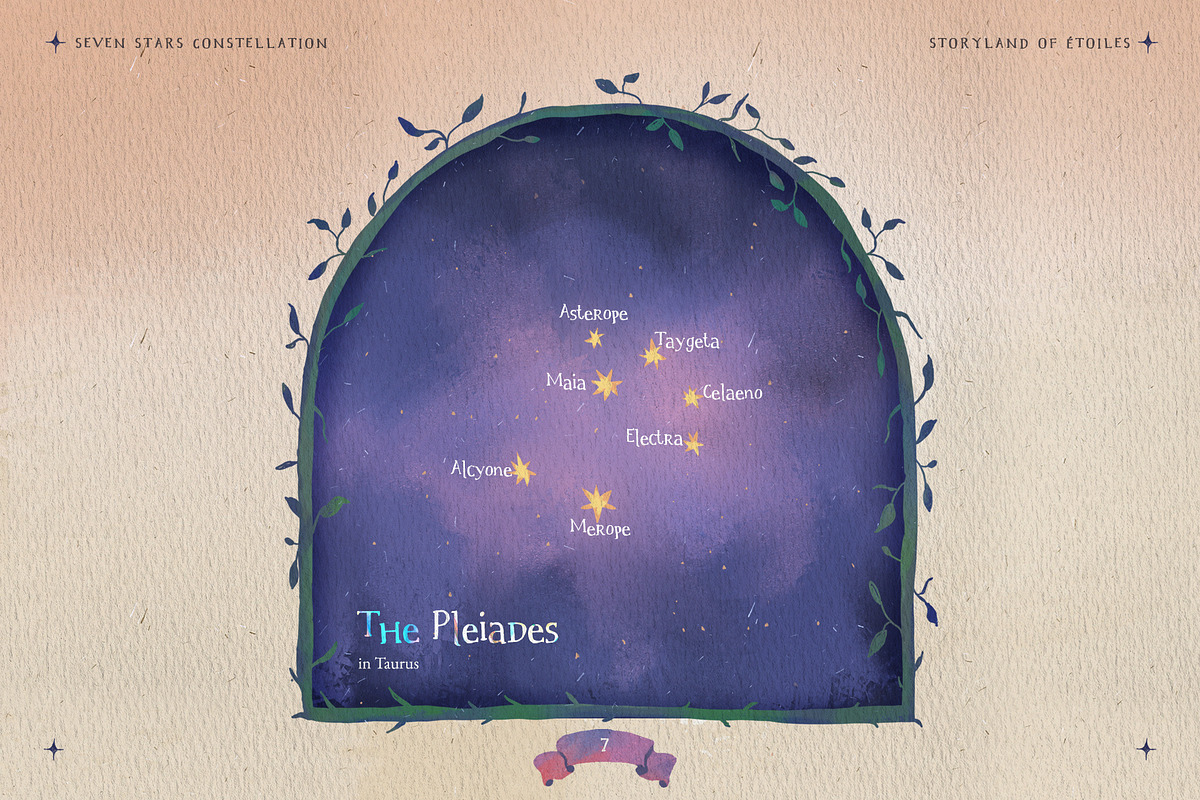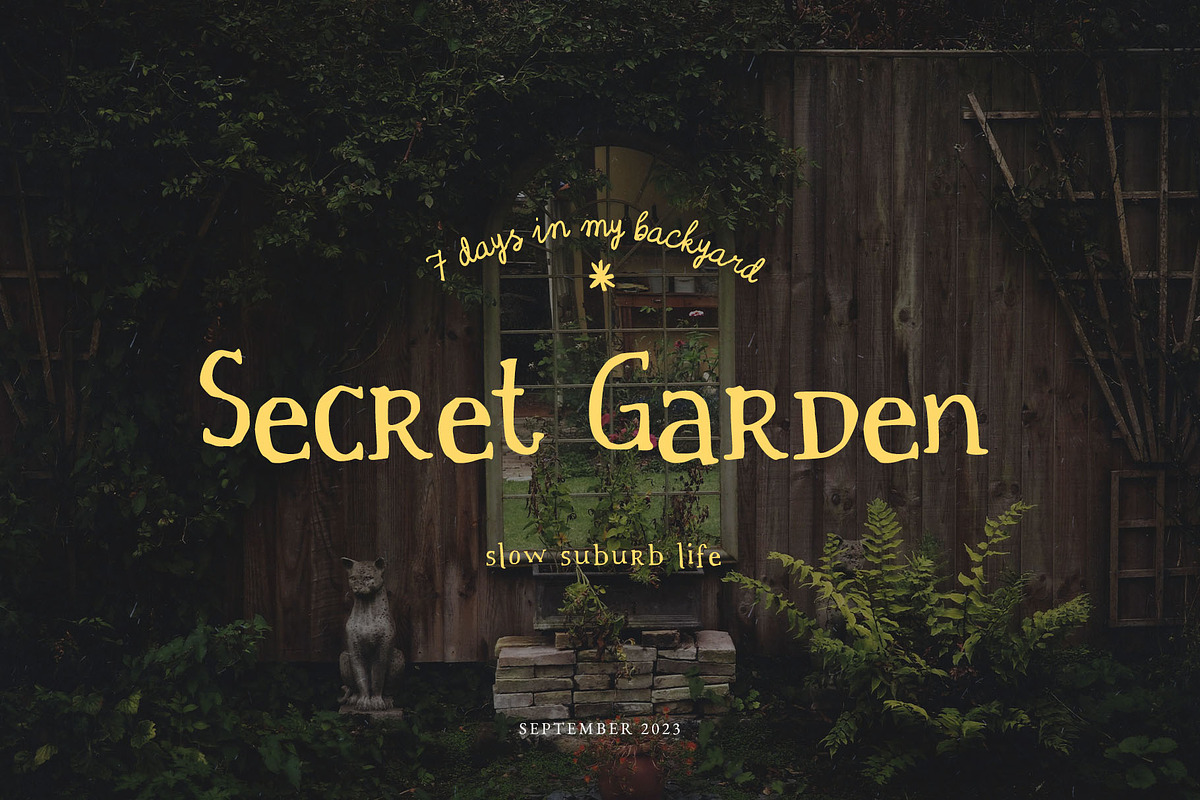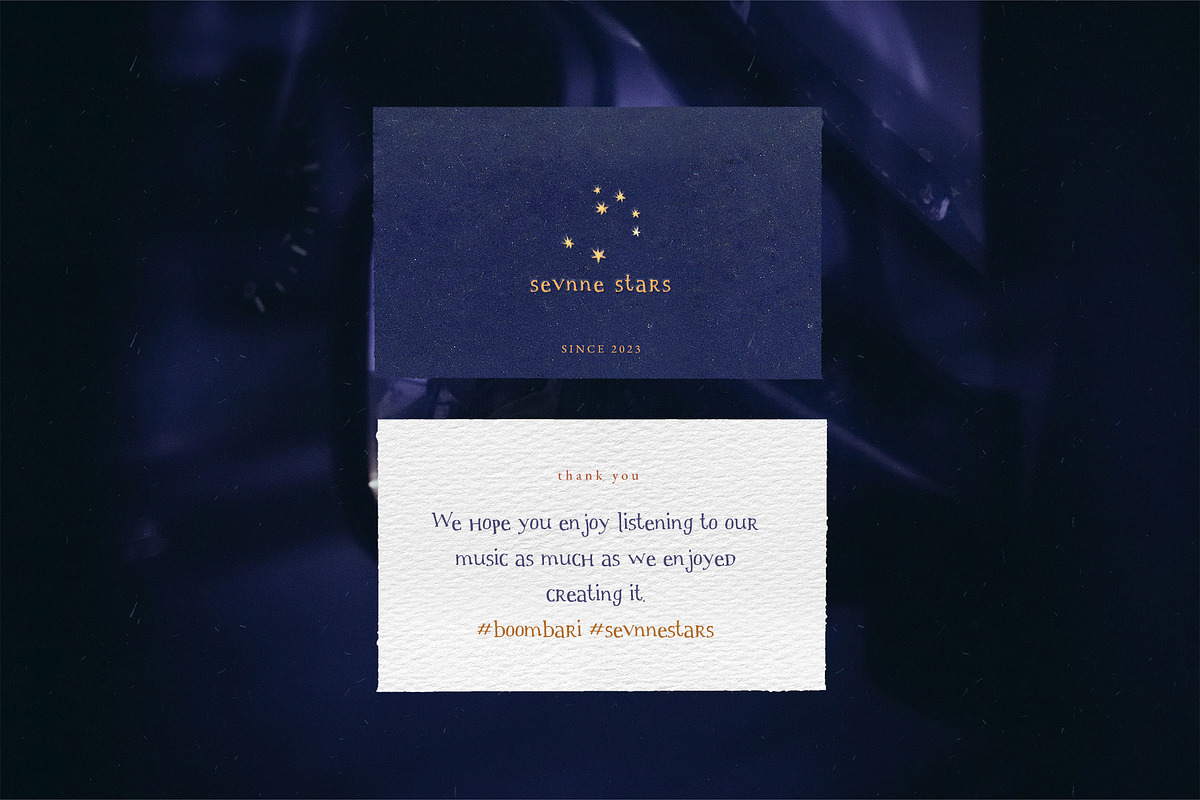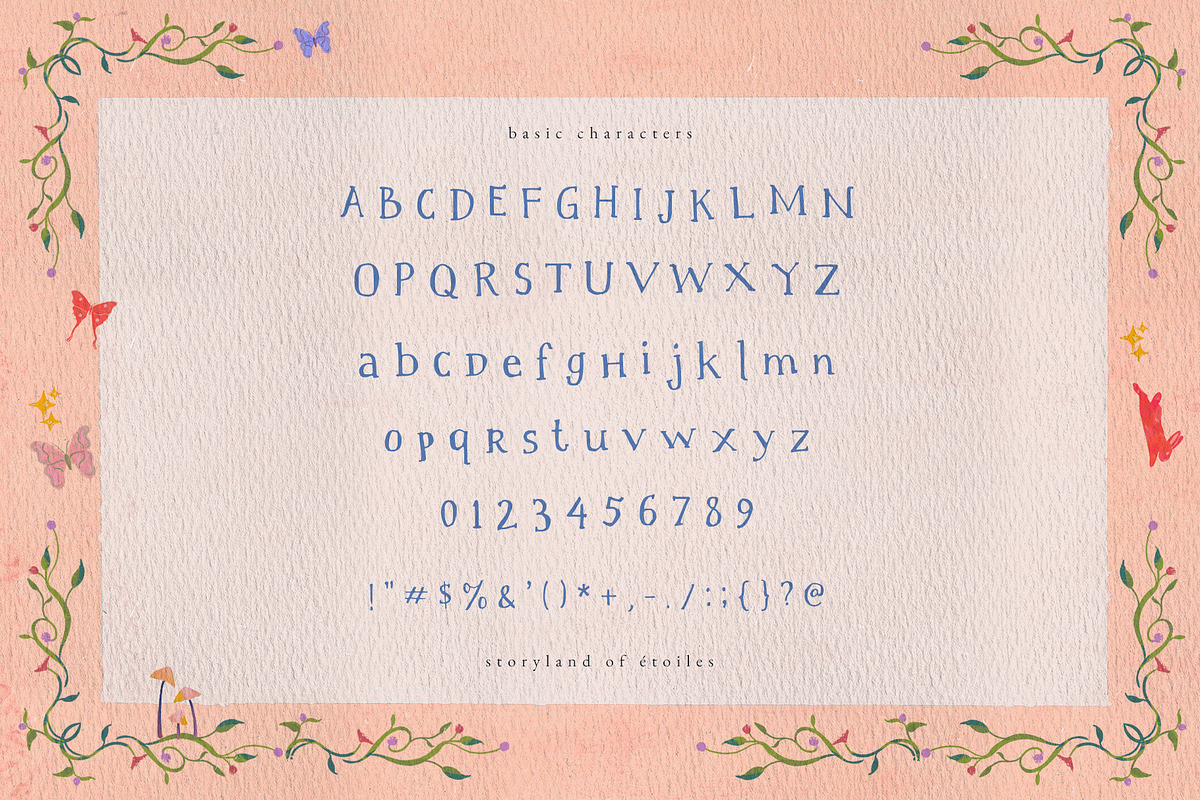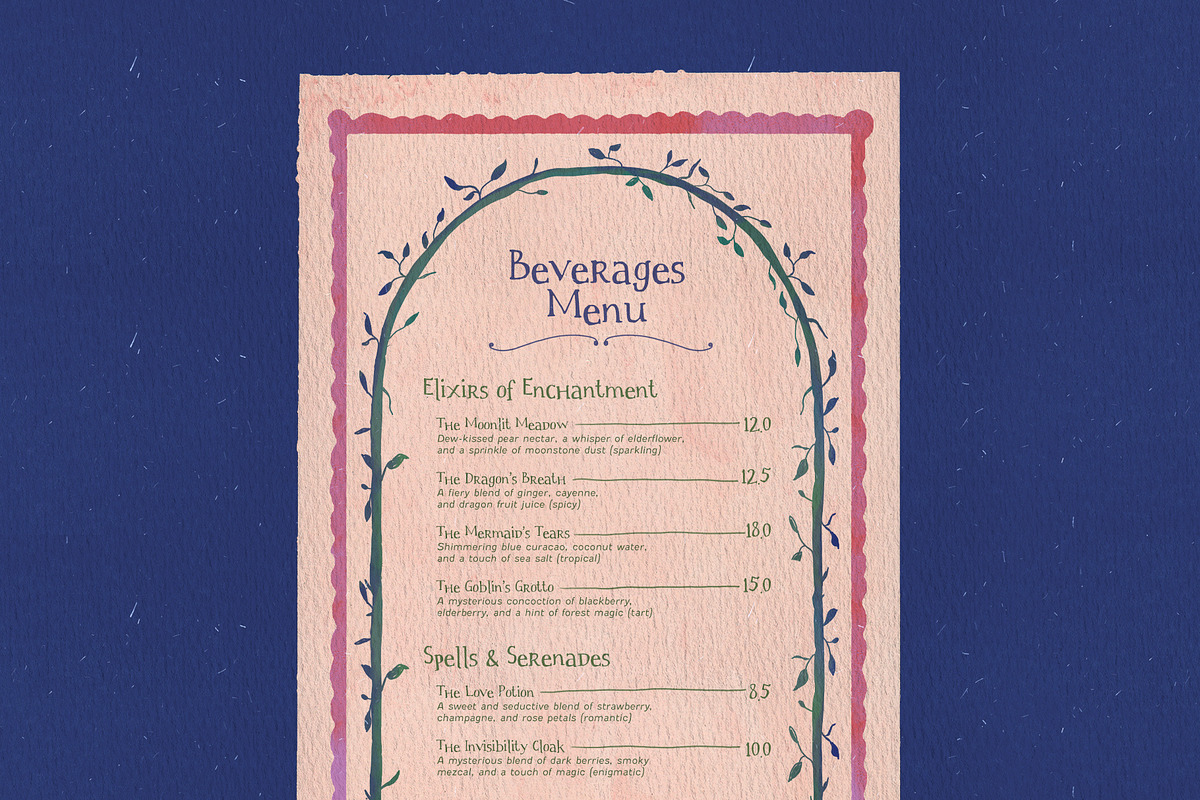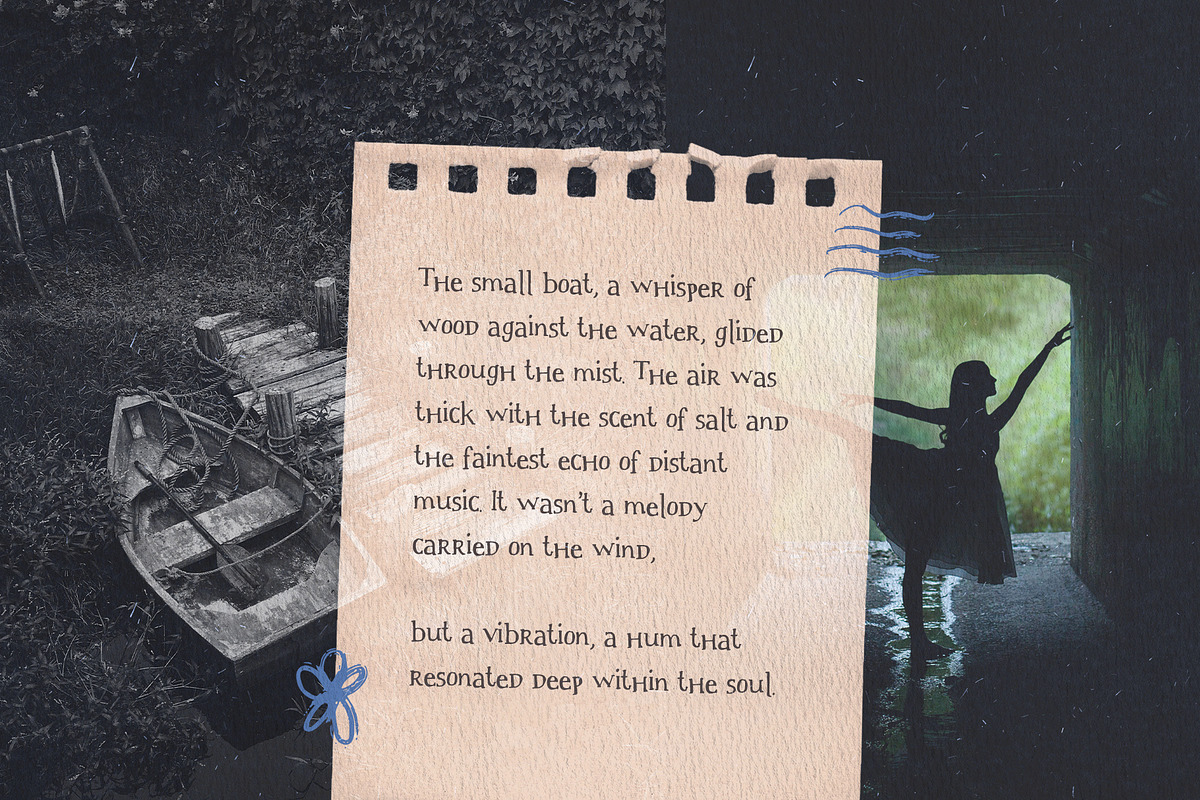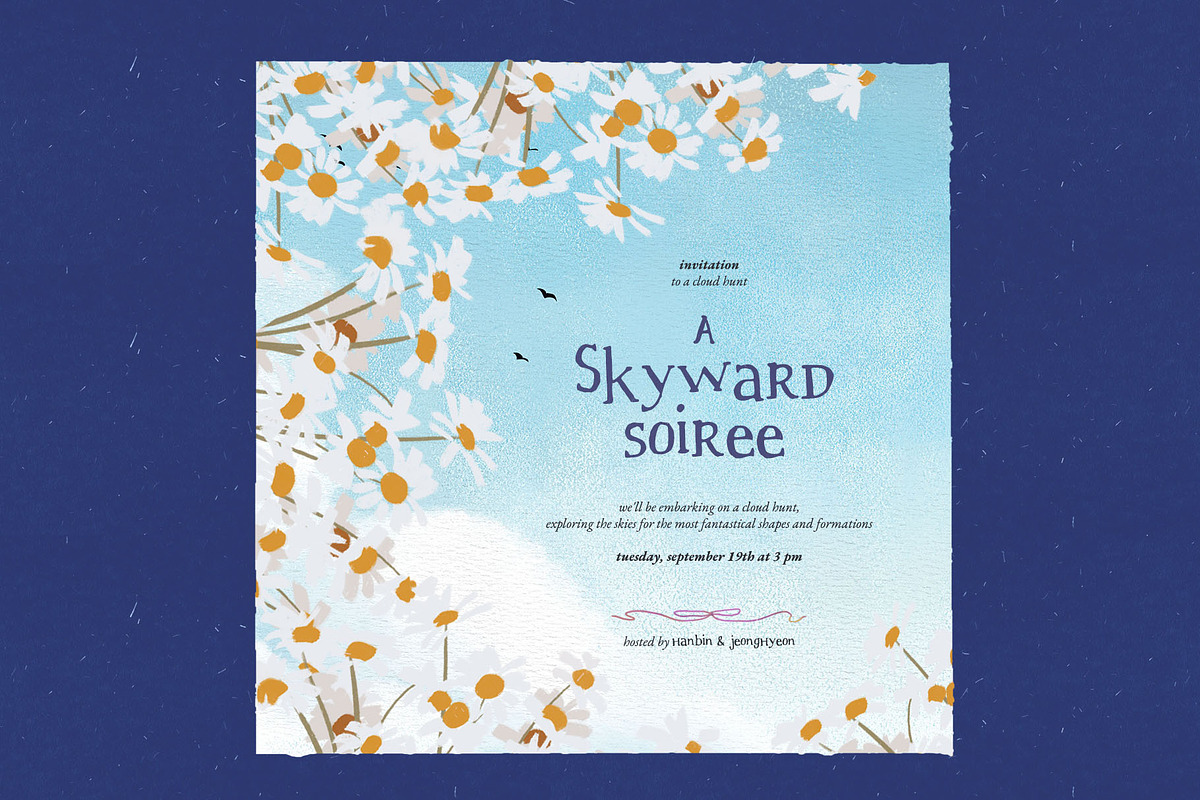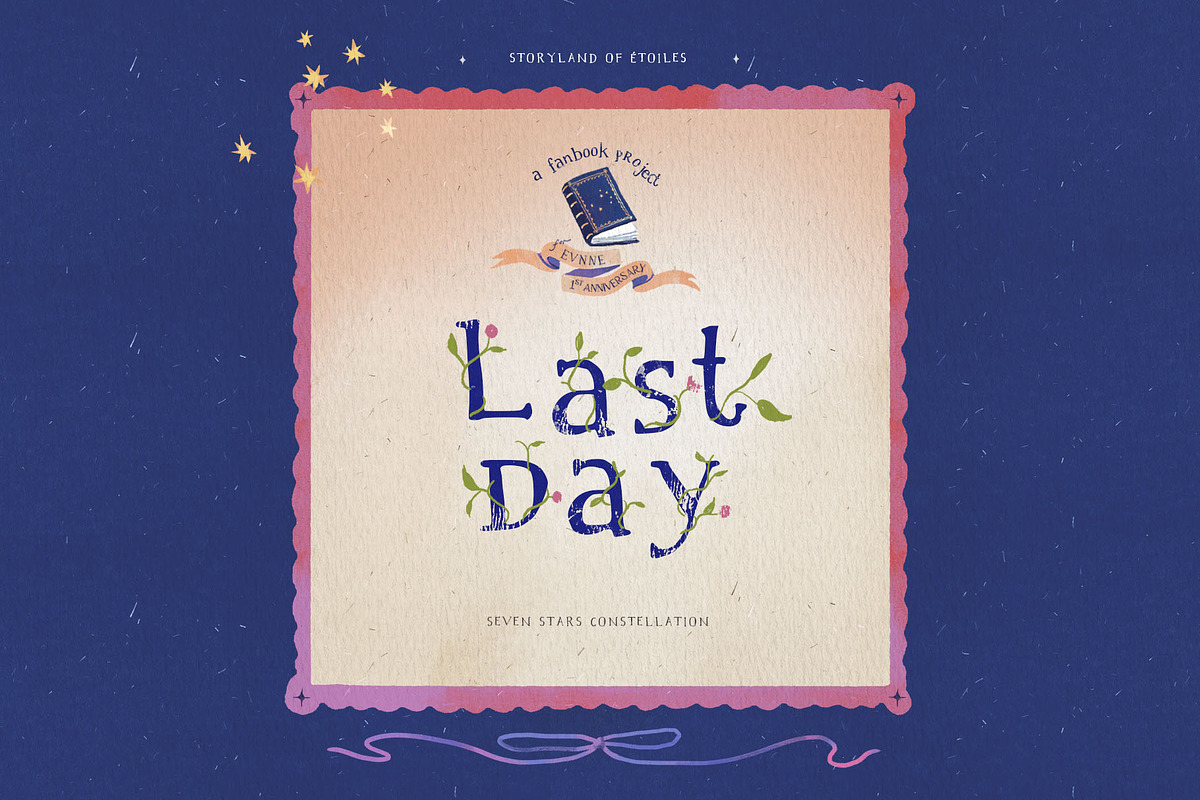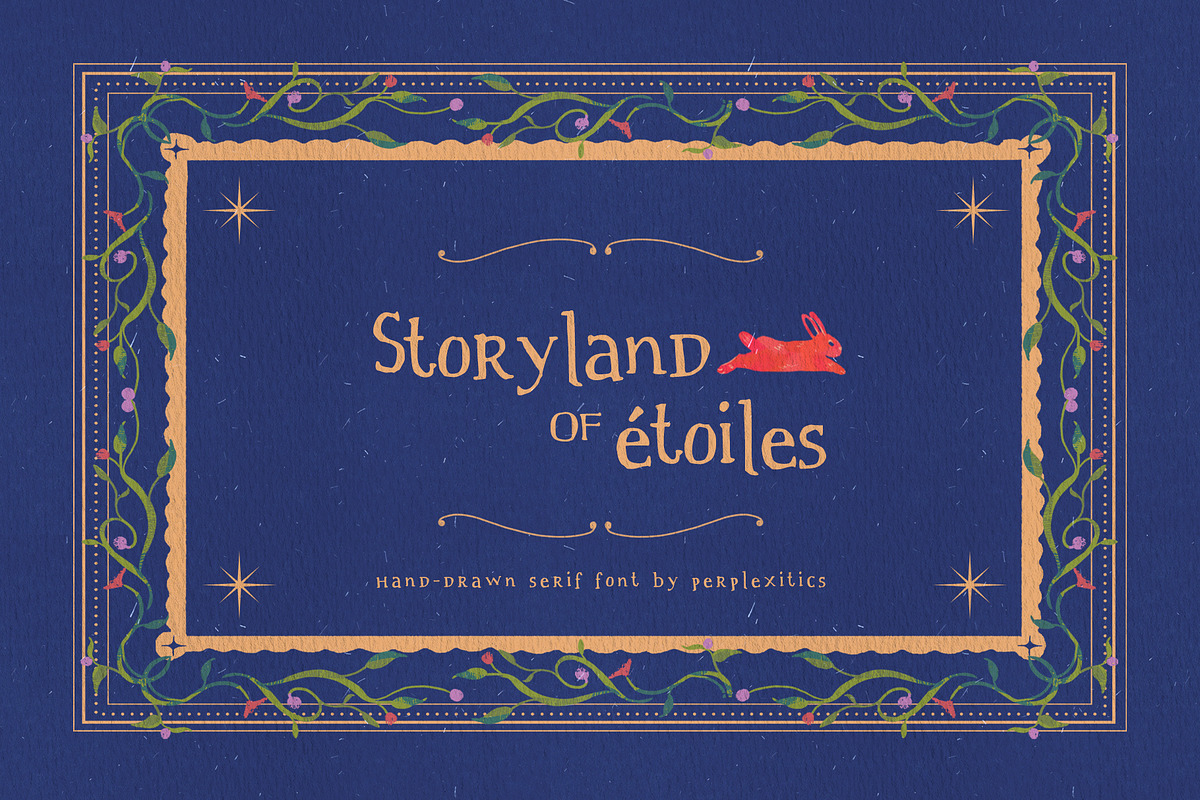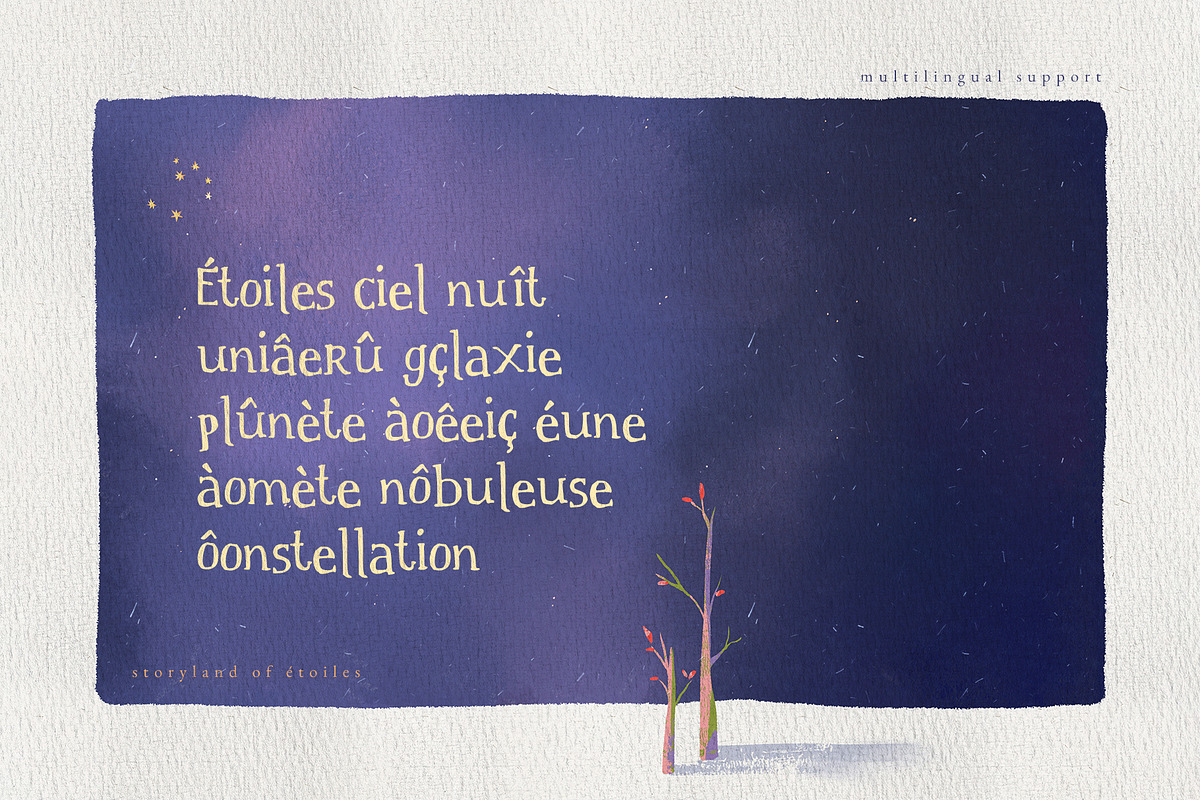
Storyland of Étoiles Handdrawn Serif
Storyland of Etoiles is a whimsical fantasy hand-drawn handwritten serif font that will transport you to a world of enchanting dreams. With its playful curves, delicate flourishes, and whimsical details, this font adds a touch of magic to any design project.
Storyland of Etoiles is packed with everything you need, including uppercase and lowercase letters, numbers, and punctuation. Multilingual support.